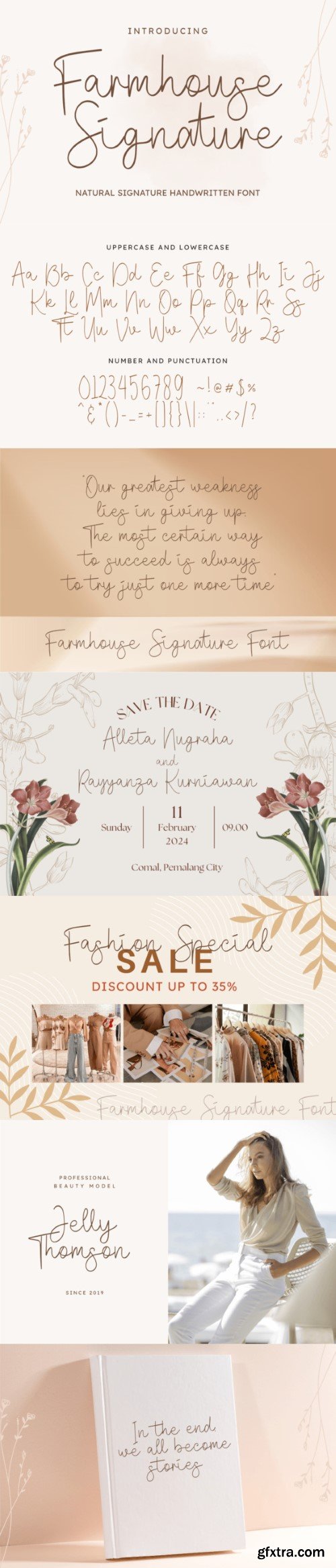
Farmhouse Signature is a handwritten script font that gives a graceful and intimate touch to each character. Influenced by handmade strokes, this font creates a natural handwritten vibe that is cozy and welcoming. Each letter shows uniqueness in every bend and stroke, making a calm yet polished ambiance. Perfect for design projects that need a personal touch, such as wedding invitations, greeting cards, brand logos and other design elements that demand a cozy and graceful atmosphere.